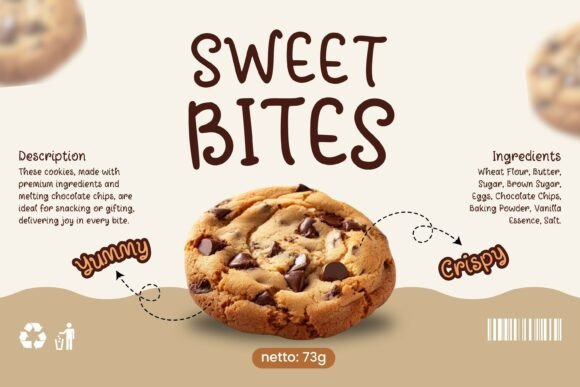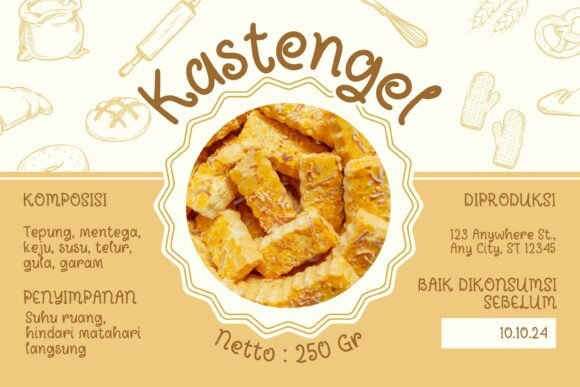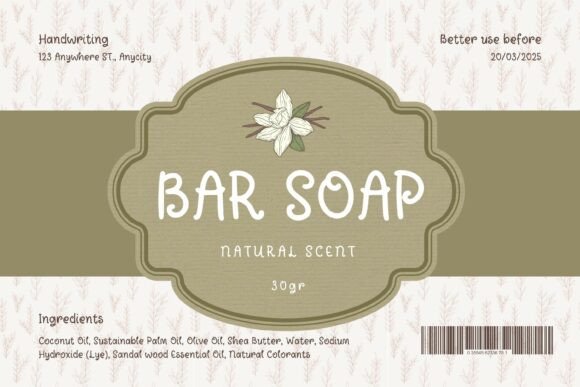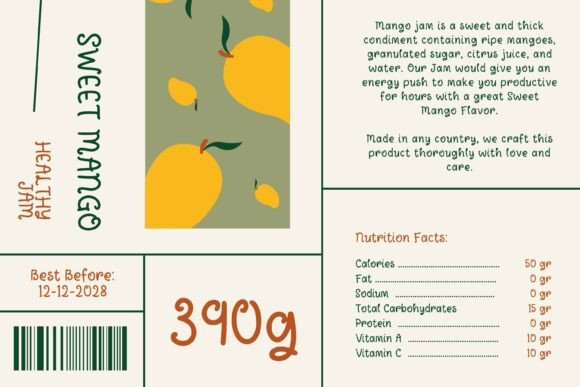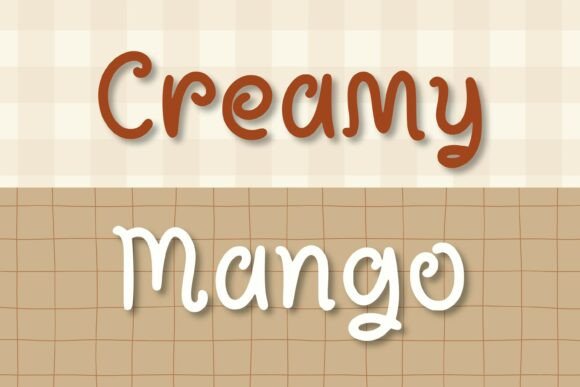
Indulge in the Sweet Charm of Creamy Mango Font
Are you looking for a font that exudes warmth, approachability, and a touch of sweetness? Look no further than the Creamy Mango font, a delightful script that feels as smooth and satisfying as its namesake. This friendly typeface is perfect for designers and crafters who want to add a personal touch to their projects, making it an ideal choice for cafe menus, bakery branding, cozy lifestyle blogs, and more.
The Characteristics of Creamy Mango Font
The Creamy Mango font features bouncy characters and rounded terminals, giving it a playful and natural flow. Its fluid charm makes it perfect for designs that require a touch of whimsy and personality. The font’s smooth and satisfying feel is reminiscent of indulging in a sweet, ripe mango, making it an excellent choice for brands that value a “home-grown” and sweet personality.
The Creamy Mango font is versatile and can be used for a variety of design projects. Its warm and inviting feel makes it perfect for:
- Cafe menus: Add a touch of sweetness to your menu with the Creamy Mango font, making your cafe’s offerings feel more approachable and inviting.
- Bakery branding: Use the Creamy Mango font to create a brand identity that feels warm, welcoming, and delicious.
- Cozy lifestyle blogs: Add a personal touch to your blog with the Creamy Mango font, making your readers feel like they’re reading a friend’s journal.
- Product labels: Use the Creamy Mango font to create labels that feel personal, artisanal, and unique.
- “Thank You” cards: Add a touch of warmth and appreciation to your “Thank You” cards with the Creamy Mango font.
Pairing Suggestions
To get the most out of the Creamy Mango font, pair it with warm, sun-kissed colors and soft checkered patterns. This will enhance the font’s natural flow and playful rhythm, creating a design that feels personal and artisanal. Some popular pairing suggestions include:
- Warm colors: Pair the Creamy Mango font with warm colors like golden yellow, orange, and pink to create a design that feels cozy and inviting.
- Soft patterns: Use soft checkered patterns or subtle textures to add depth and interest to your design.
Adding Flair to Your Designs
The Creamy Mango font is perfect for adding an attractive flair to your designs. Use it to:
- Embellish design projects: Add a touch of personality to your designs with the Creamy Mango font, making them feel more engaging and visually appealing.
- Highlight crucial elements: Use the Creamy Mango font to highlight important elements in recipes, such as ingredient lists or cooking instructions.
- Add a personal touch to product packaging: Use the Creamy Mango font to add a personal touch to your product packaging, making it feel more unique and artisanal.
Why Choose Creamy Mango Font?
There are many reasons why you should choose the Creamy Mango font for your design projects. Here are just a few:
- Unique personality: The Creamy Mango font has a unique personality that sets it apart from other fonts.
- Versatility: The font is versatile and can be used for a variety of design projects.
- Easy to read: The Creamy Mango font is easy to read, making it perfect for body text and headlines.
- Transforms text into a design element: The font transforms your text into a visually arresting design element that engages viewers.
| Font Name | Creamy Mango Font |
| Author | nuraisyahamalia1729 |
In conclusion, the Creamy Mango font is a delightful script that feels as smooth and satisfying as its namesake. Its friendly and approachable feel makes it perfect for designers and crafters who want to add a personal touch to their projects. With its bouncy characters, rounded terminals, and natural flow, the Creamy Mango font is ideal for cafe menus, bakery branding, cozy lifestyle blogs, and more. So why not indulge in the sweet charm of the Creamy Mango font and take your designs to the next level?